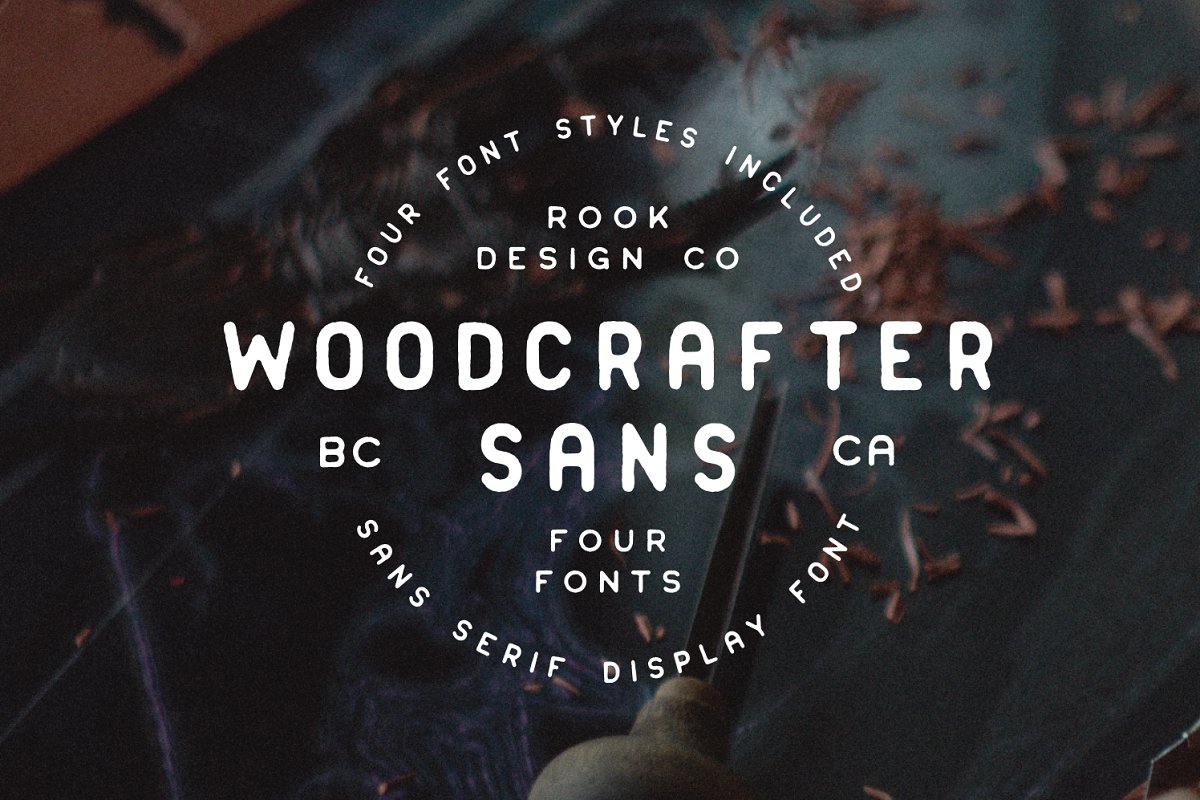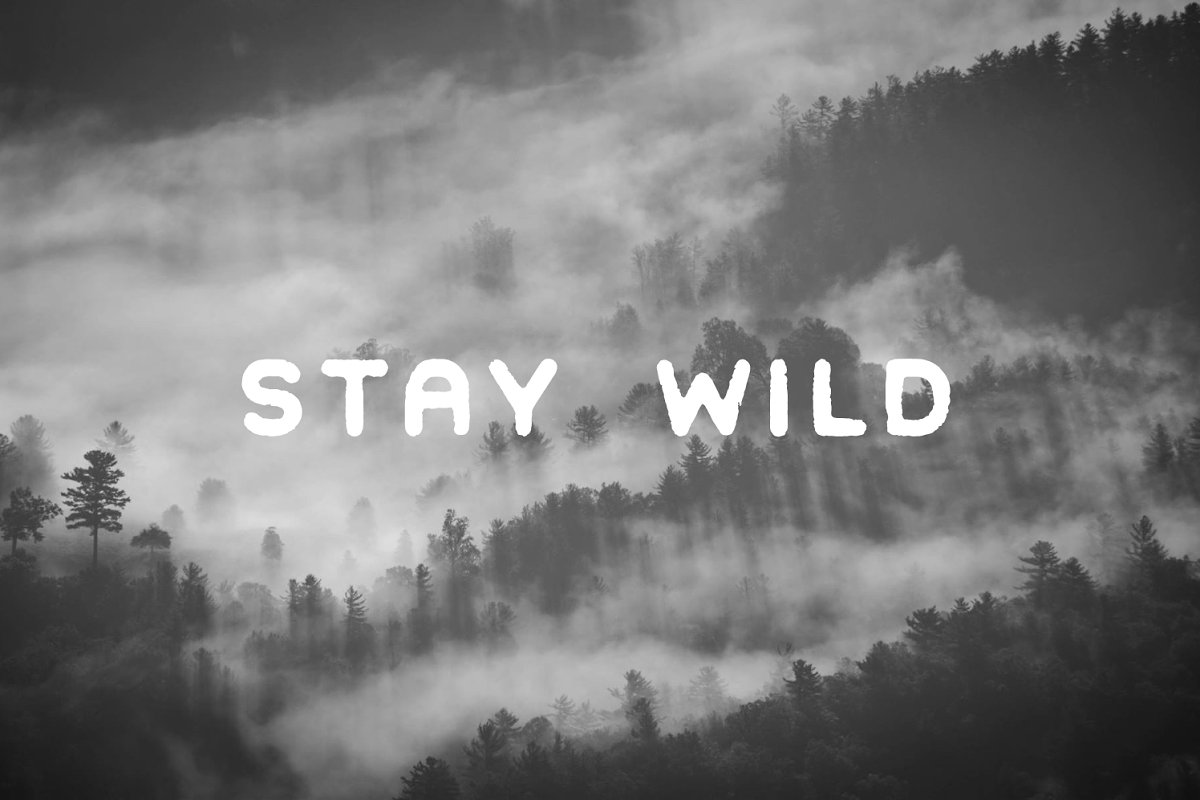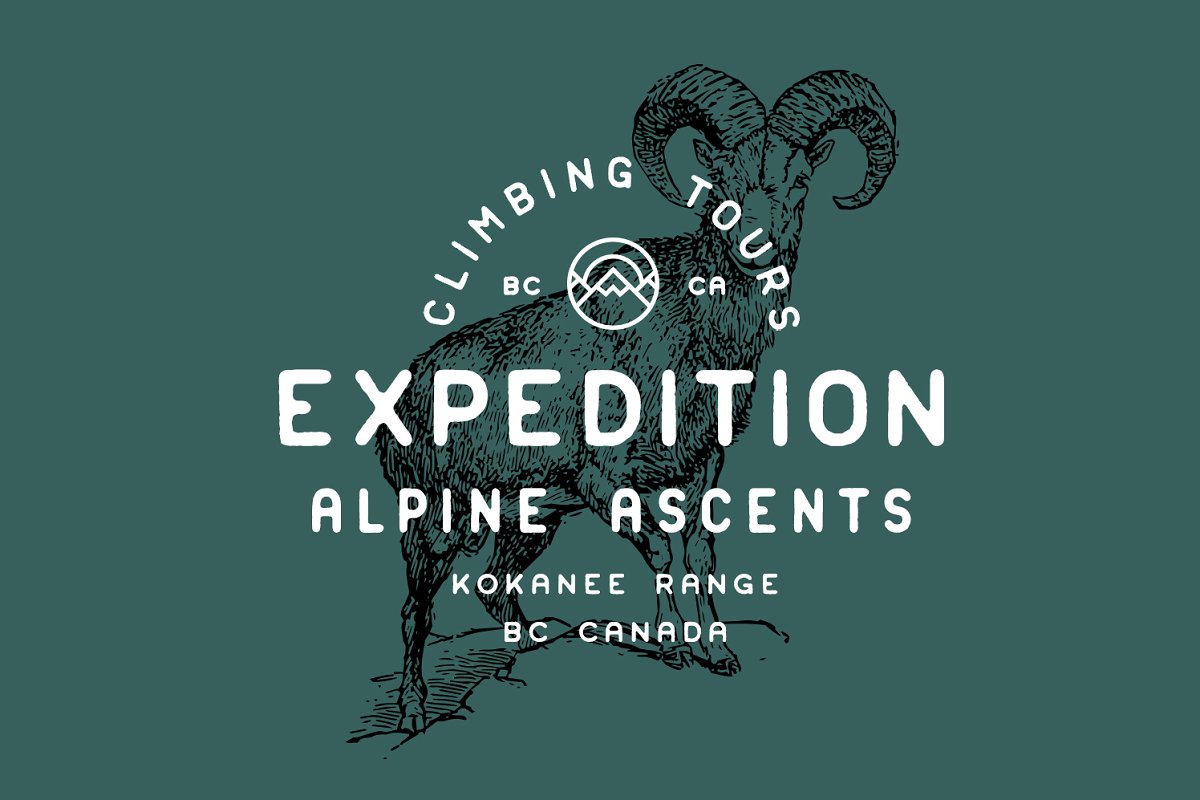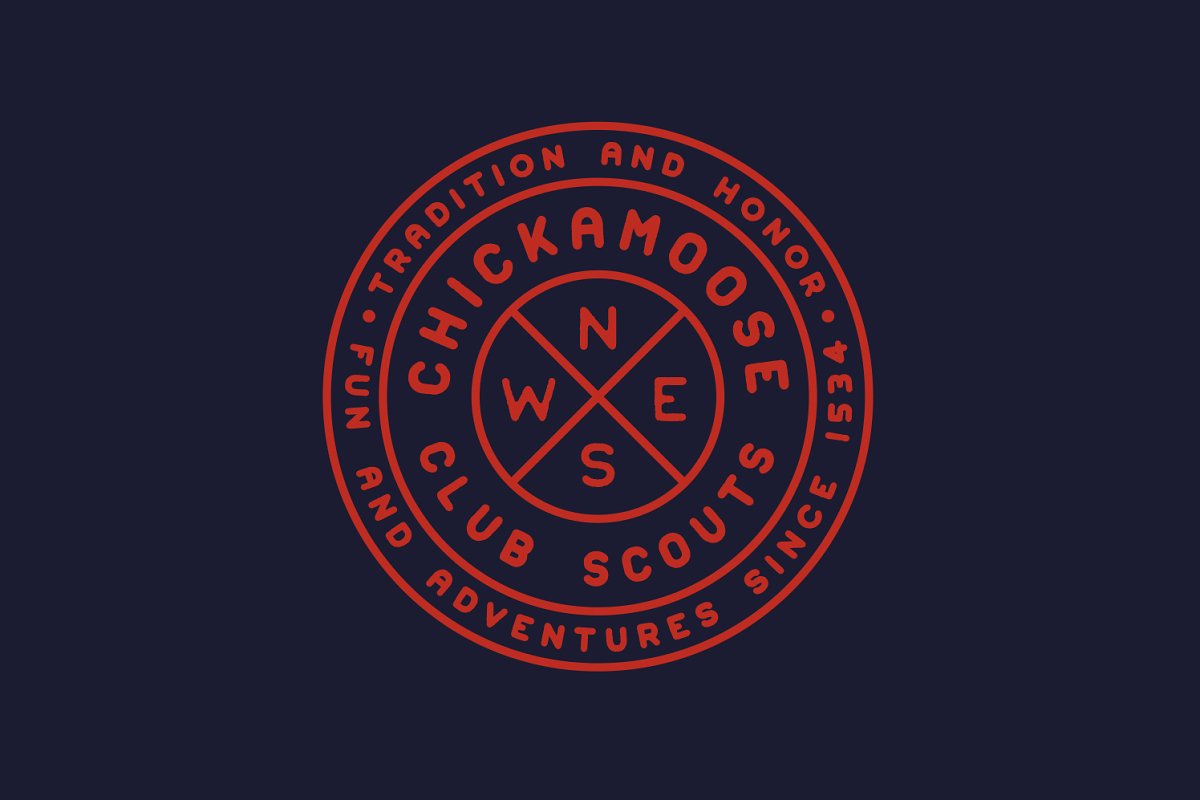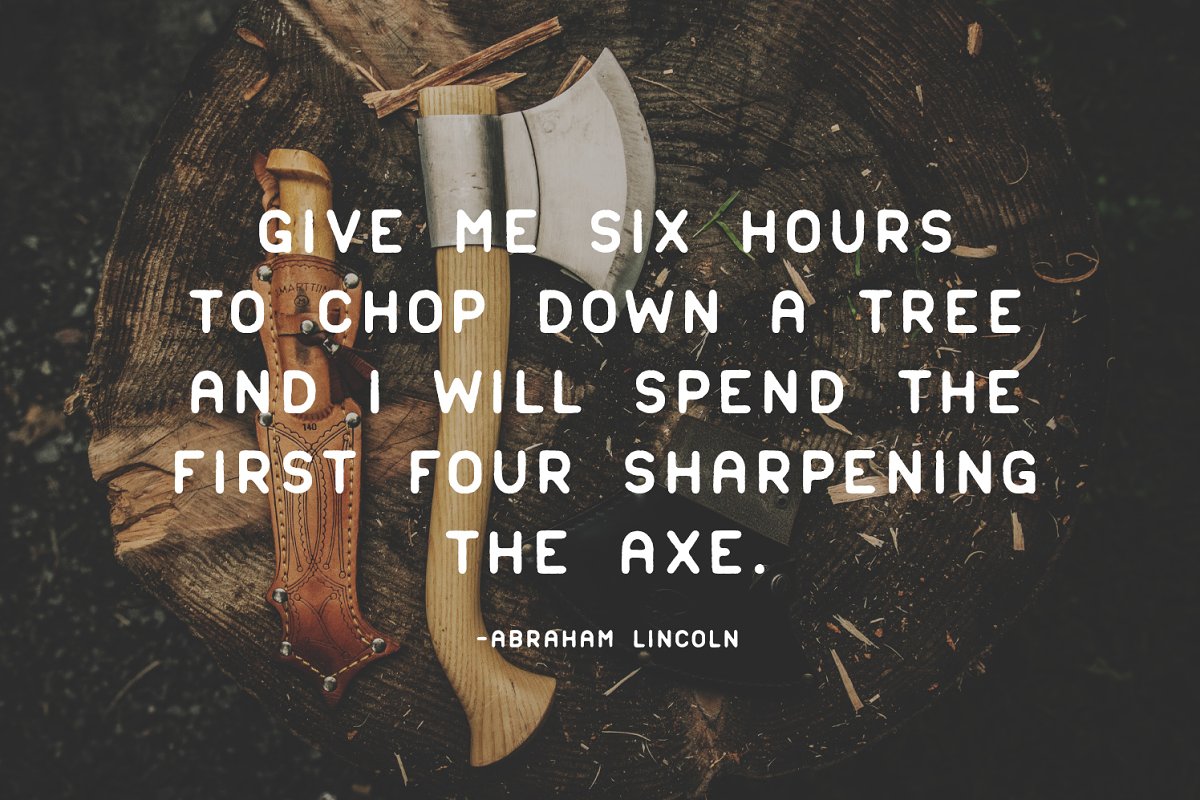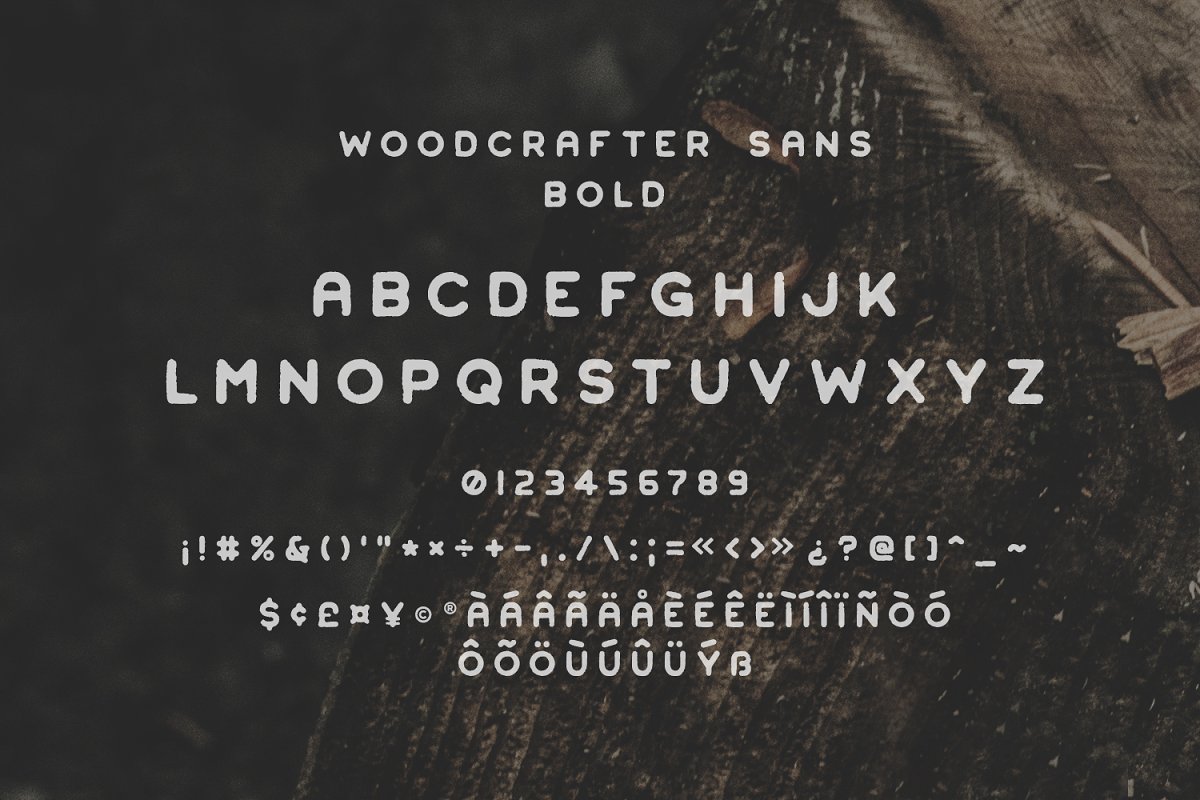
About the Woodcrafter Sans Family Font
Woodcrafter Sans is a family of FOUR fonts designed with your logos, branding, and quotes mind, Rounded edges and imperfections were added to the characters to give that old school printing vibe, Woodcrafter Sans is extremely versatile on its own, The font family also works great as a secondary font to go along with existing logos and branding, Here’s everything you get with the Woodcrafter Sans Family:Four fonts:Woodcrafter Sans – RegularWoodcrafter Sans – CondensedWoodcrafter Sans – Extra CondensedWoodcrafter Sans – BoldLanguage Support – We’ve added in a great deal of extra characters to support many different languages